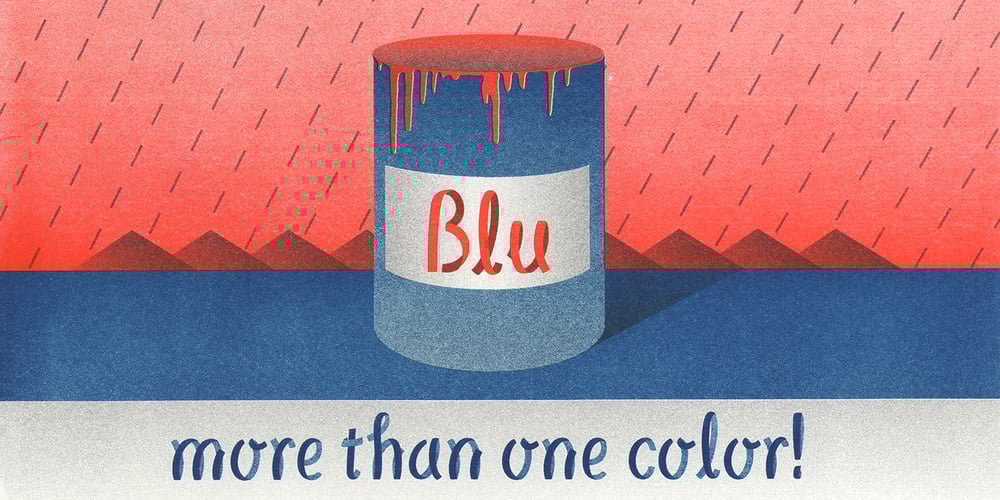
Blu Font Family was designed by Leo Koppelkamm and published by Leo Koppelkamm. Blu contains 3 styles and family package options. When flat space becomes curved, folded down and twisted, you get a font unlike others. This is what blu is all about: A font that is multilayered but still highly versatile: Three layers allow you to combine colors as you please. Choreographic typography is how i like to call it.